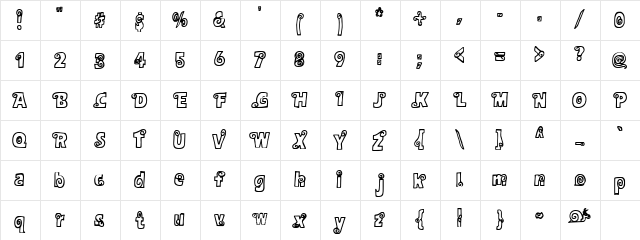
Alphasnail Font Preview
Alphasnail Alphasnail
Alphasnail Font Details
Design Context for Alphasnail Typeface
Alphasnail is a composed and adaptable typeface that performs quietly and consistently across a wide range of design contexts.